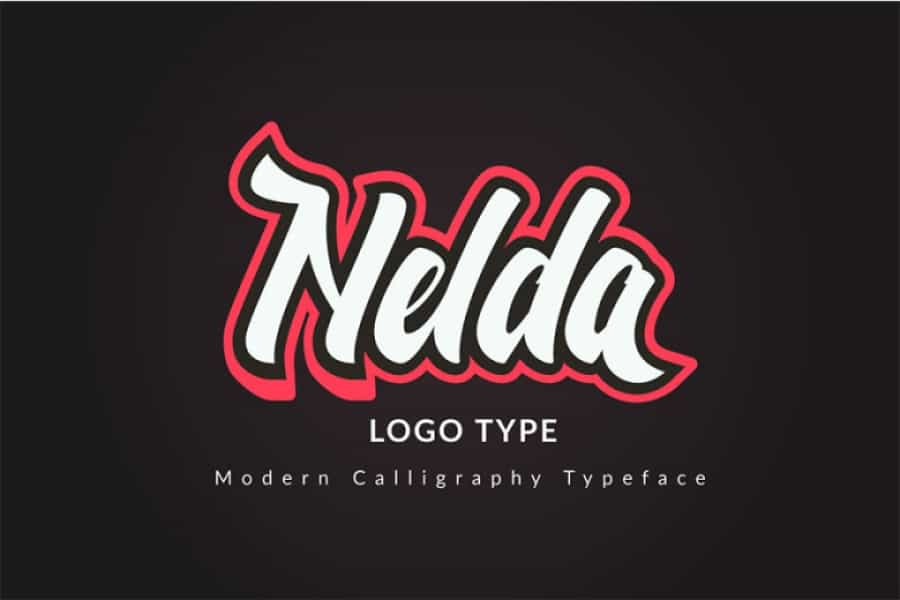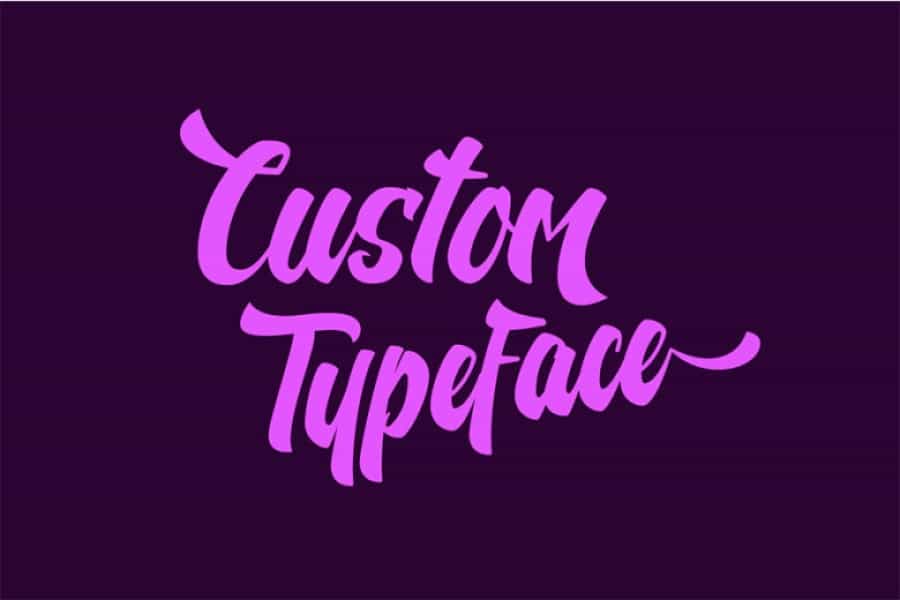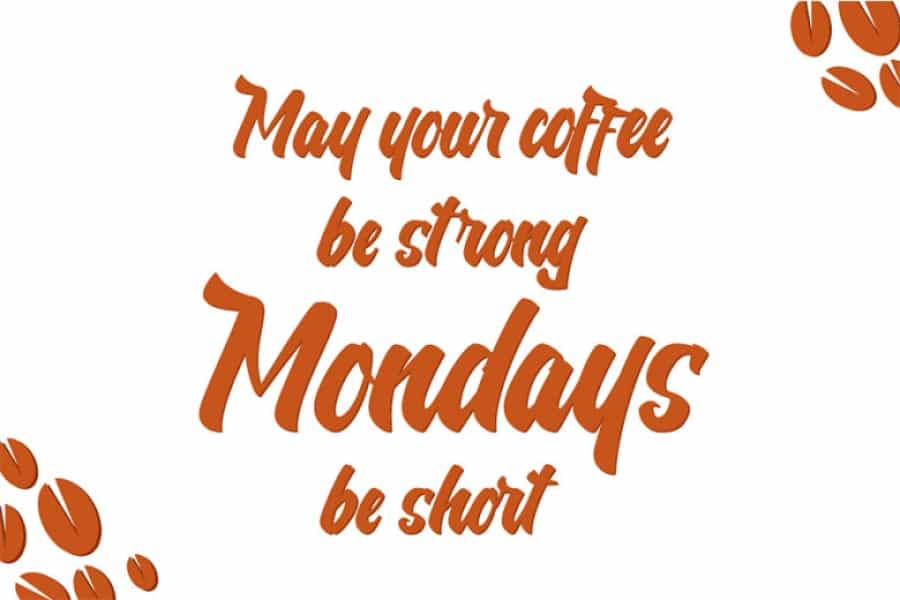
Nelda is a versatile display and script type face, that has been designed by Nelda Typography that blends brush writing, calligraphy and certain trends that are popular in typography at the moment. Ideal for logos, packages, headlines, posters, and t-shirts among other usages.